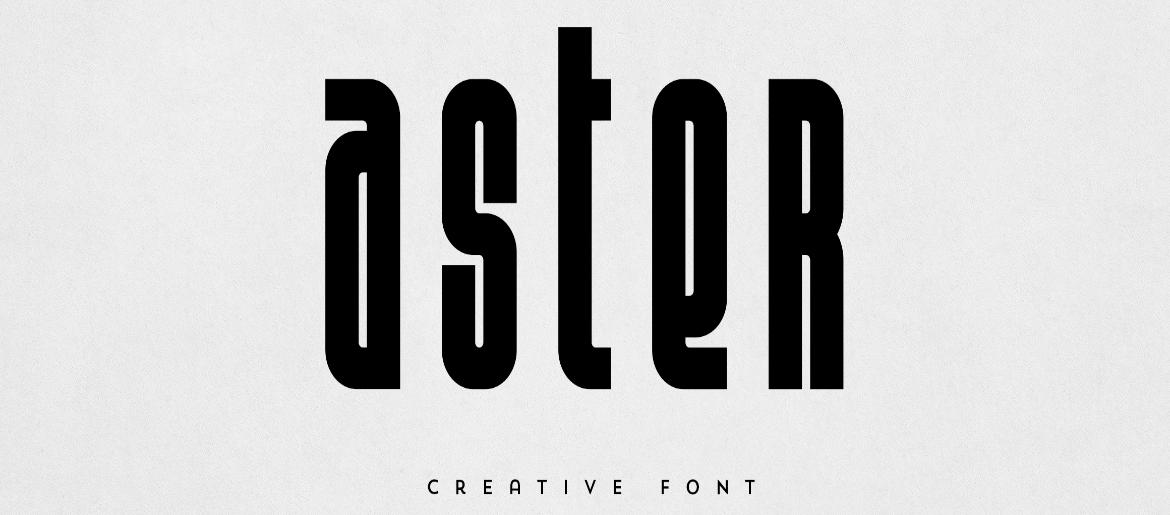
Aster Font
Aster by VP Creativeshop is a bold, creative display typeface built for impact. Its confident, heavy letterforms carry a strong graphic presence — the kind of face that anchors logos, makes headlines stop traffic, and gives branding projects an immediate visual authority. Clean enough to work across a wide range of applications, distinctive enough to leave an impression, Aster is a dependable display companion for designers who need weight and personality without compromise. Free for personal use.
Aster is a striking bold display typeface in our free font collection, crafted by Varna-based VP Creativeshop and released freely for the design community. Browse our full library of free fonts and discover more distinctive typefaces crafted by independent designers around the world.
Designer: VP Creativeshop
Style: Display / Bold, Logo